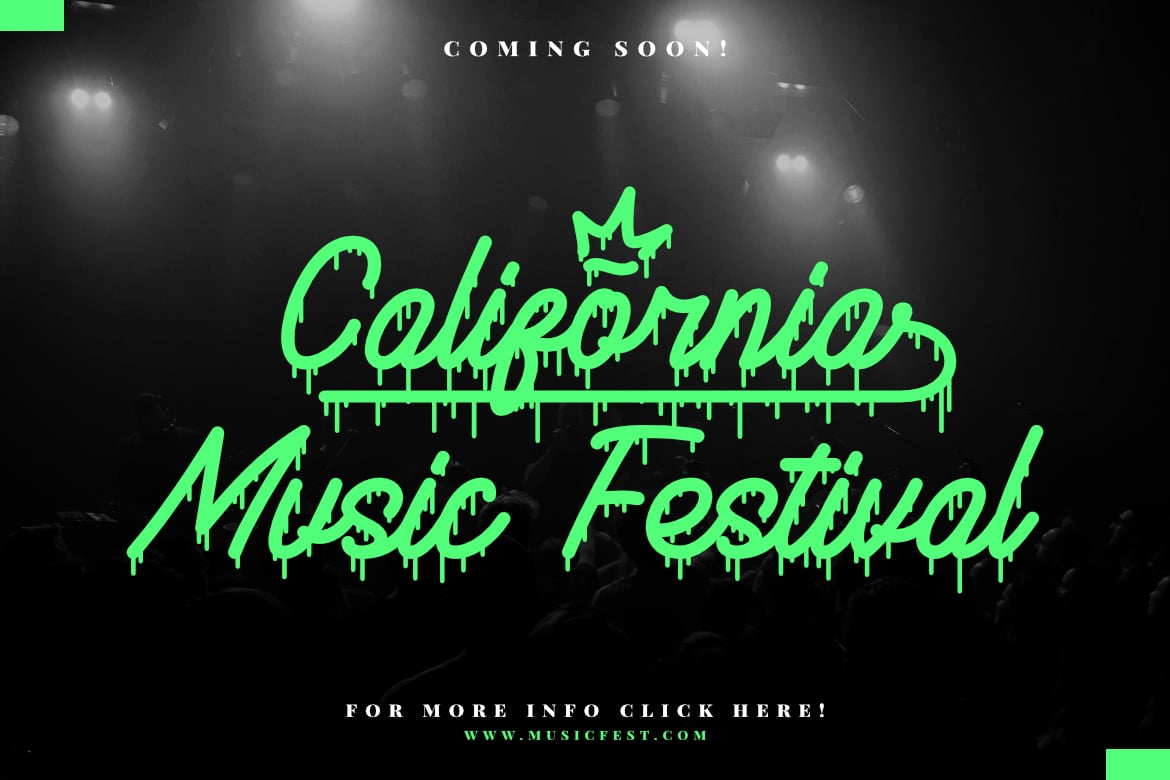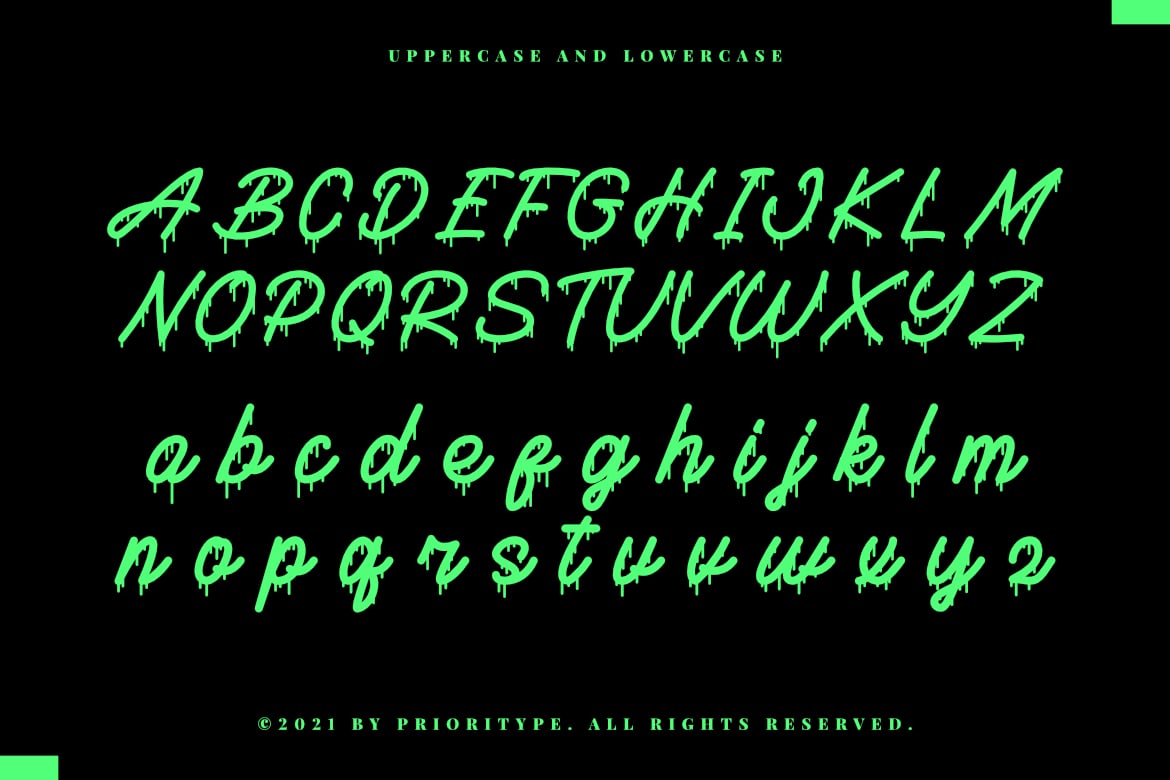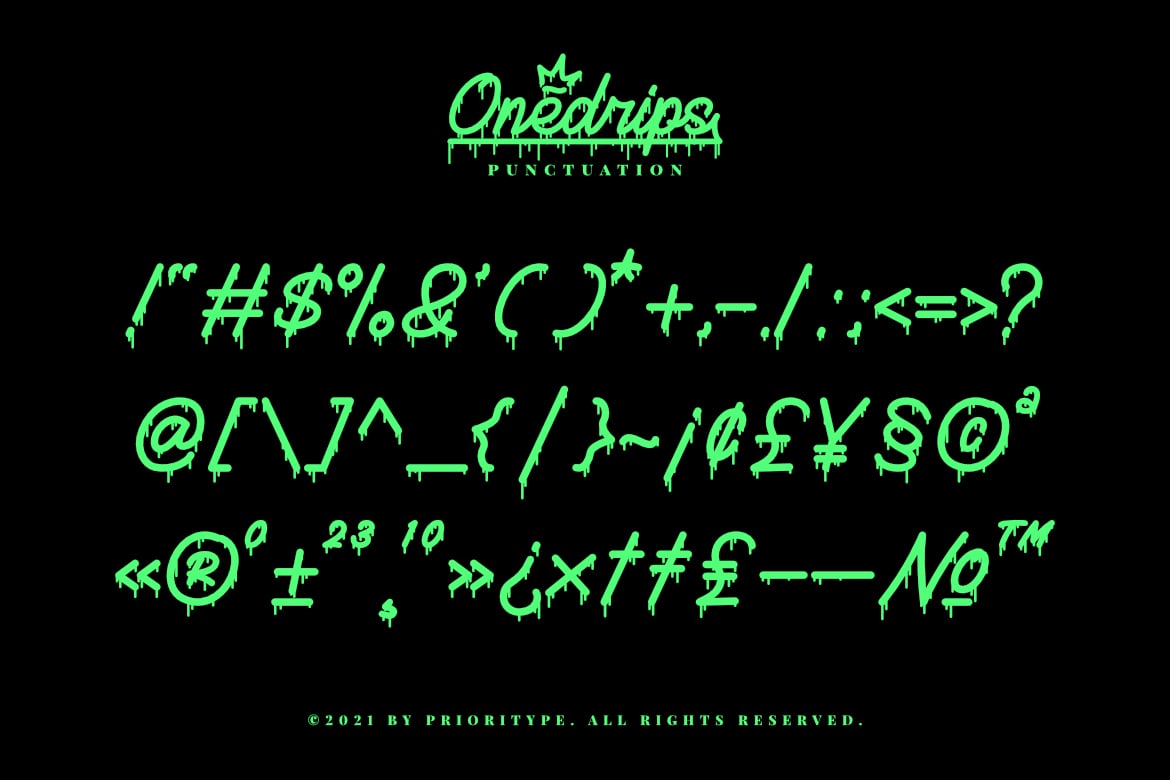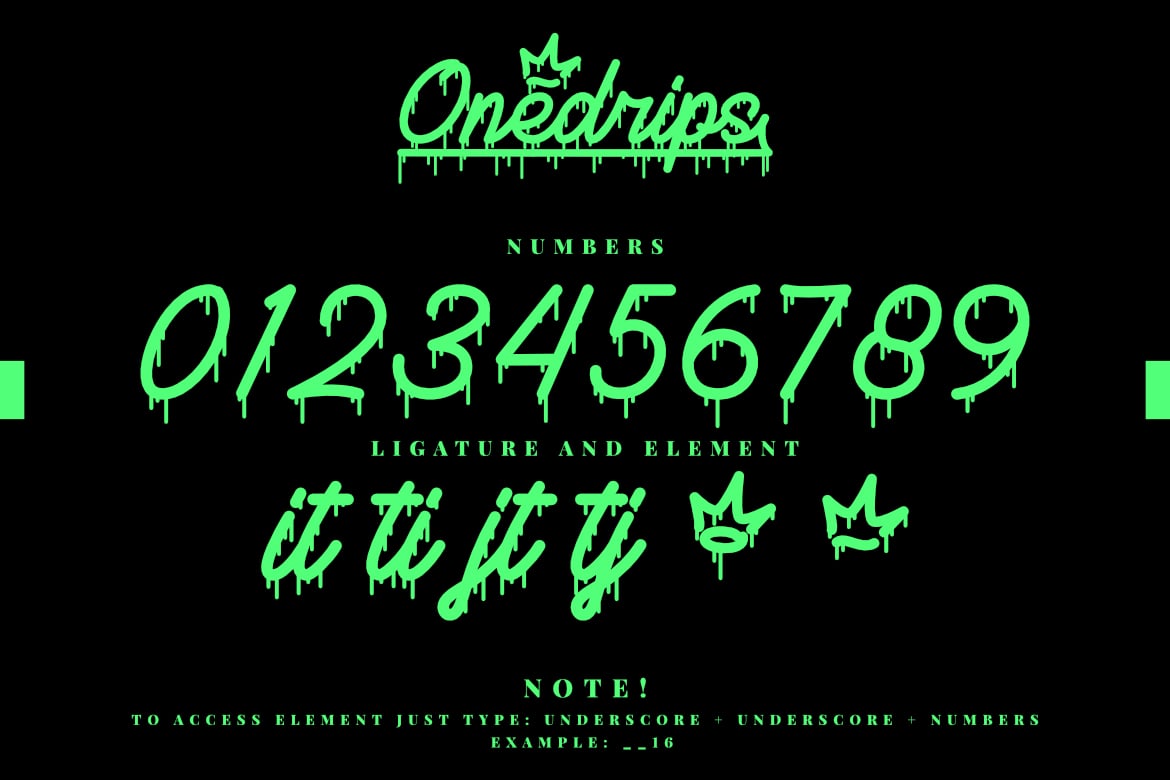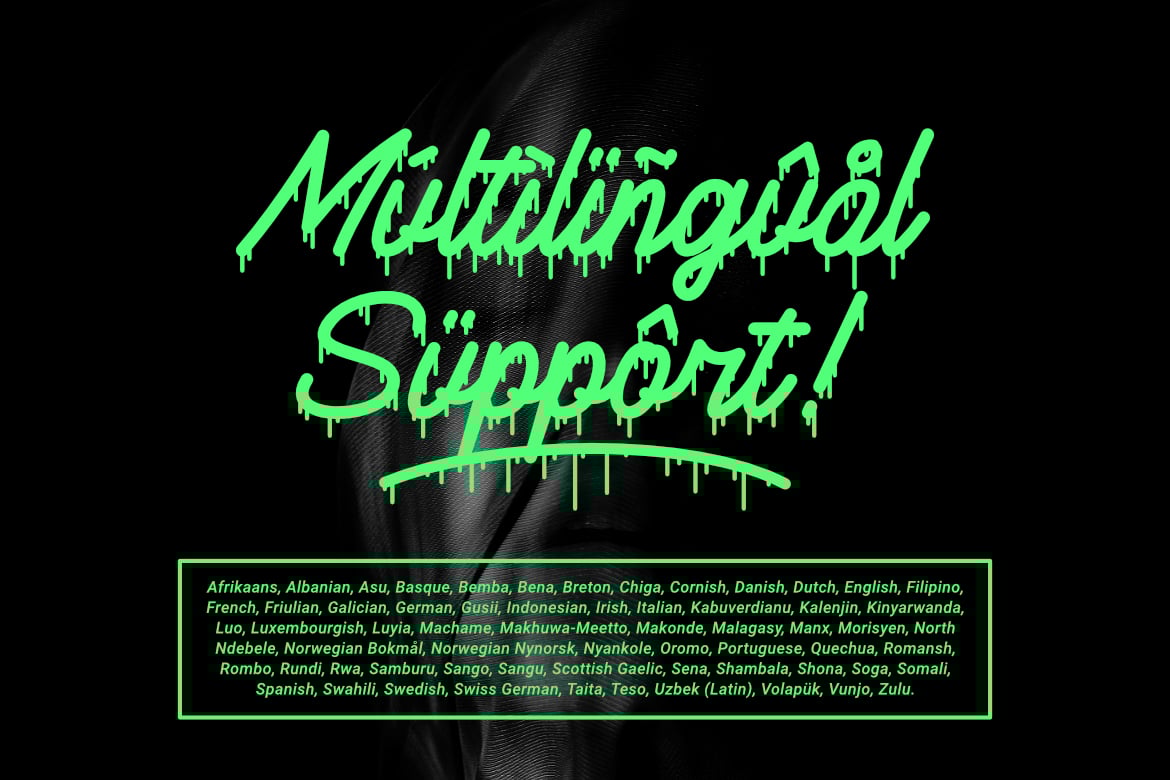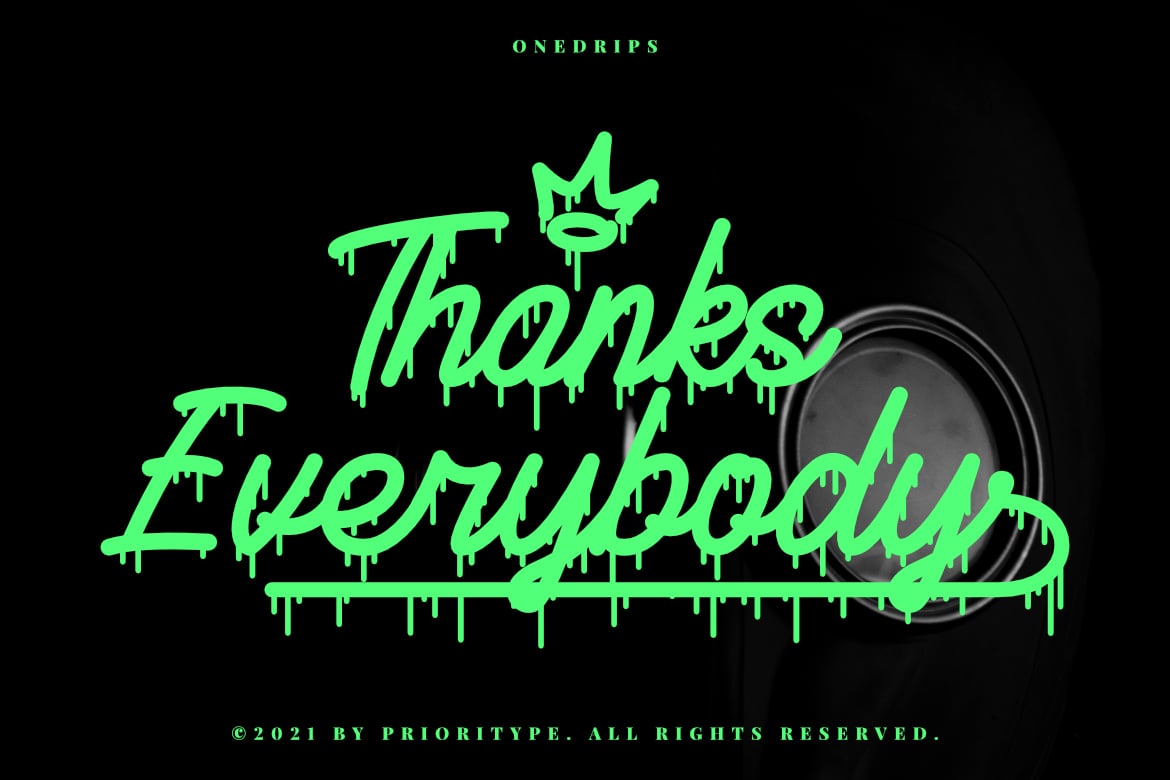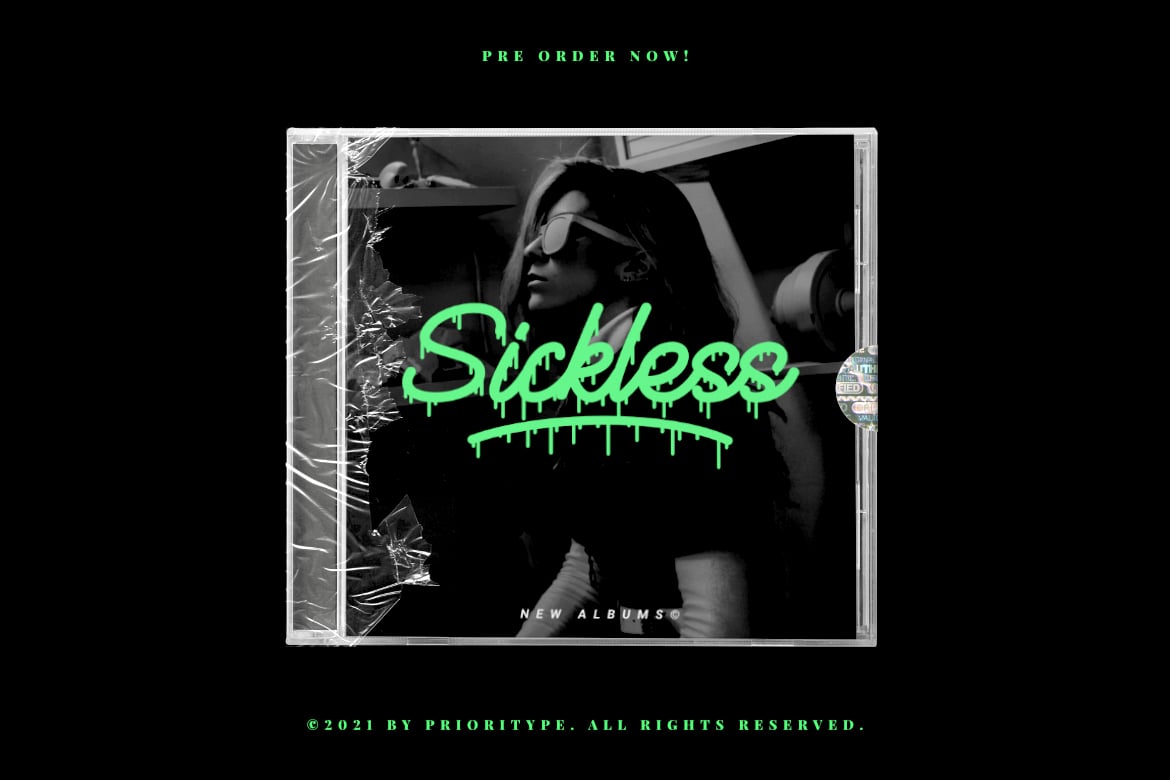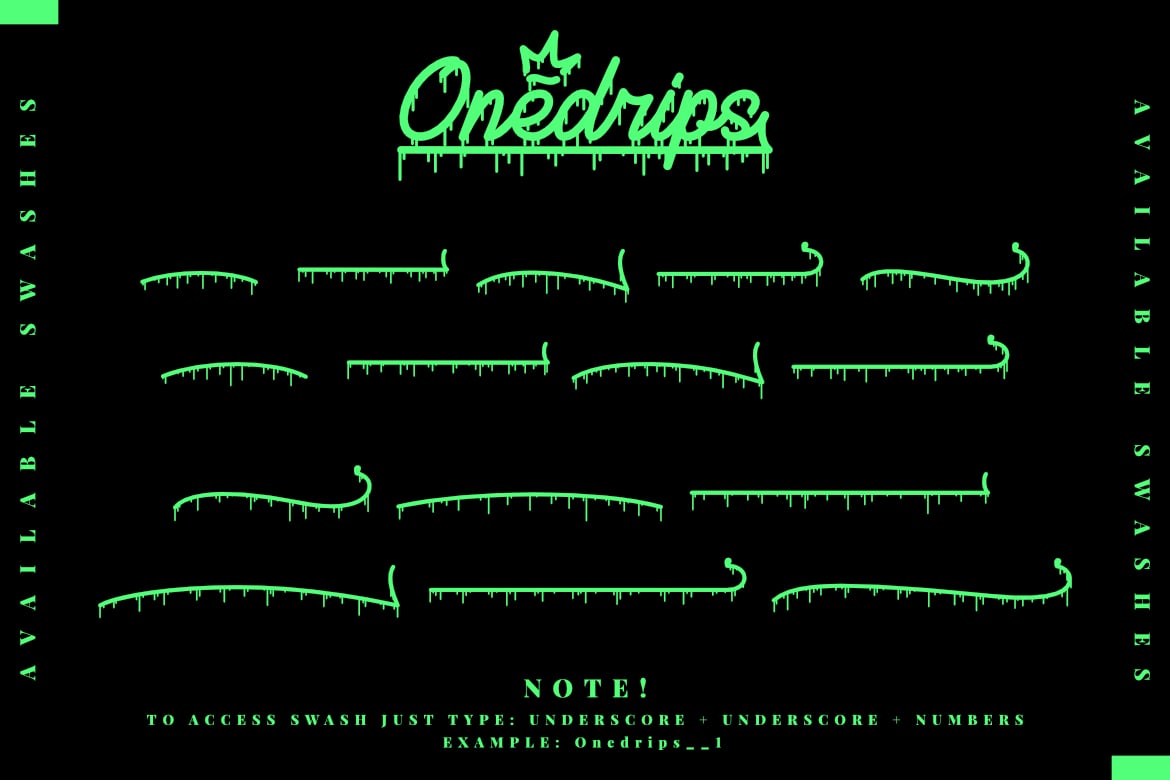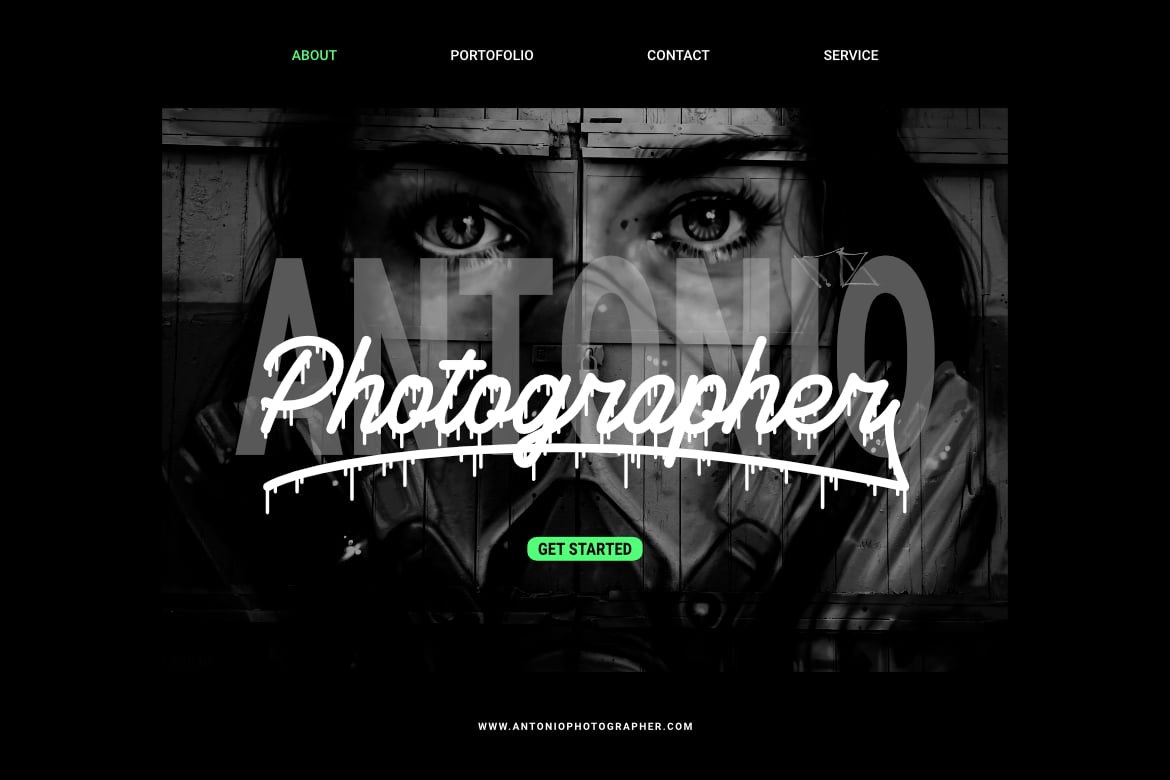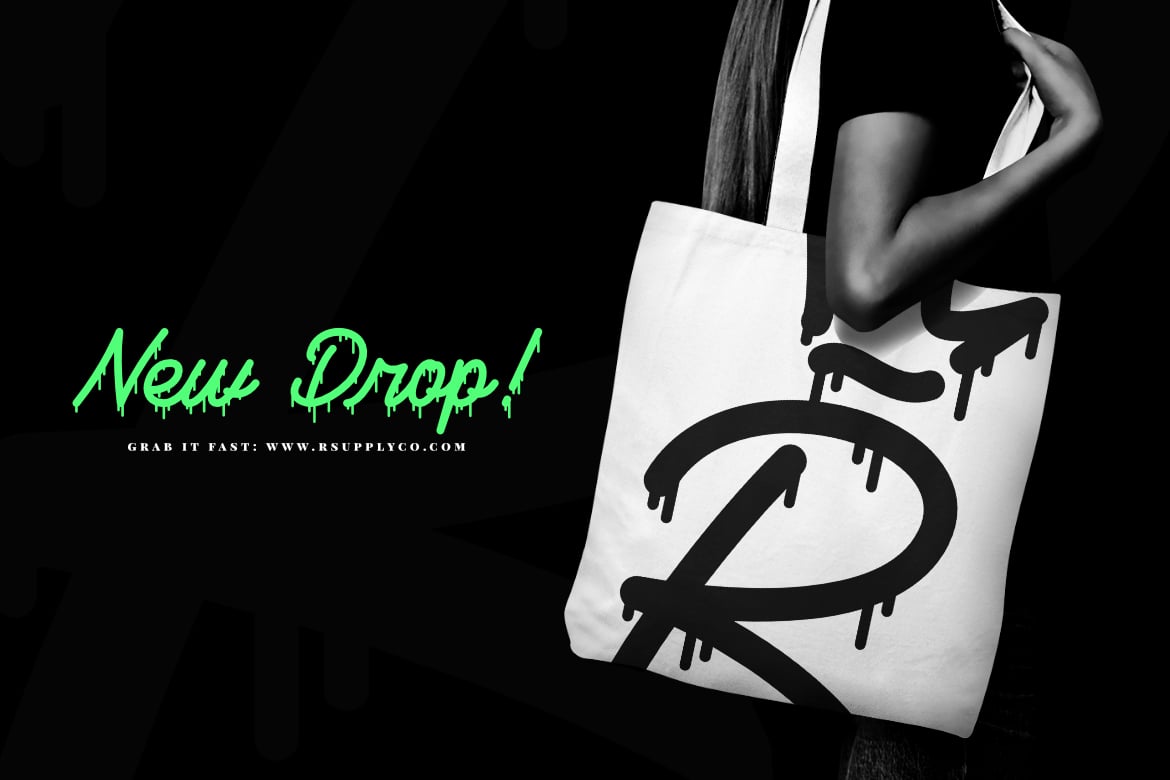
Onedrips – Graffiti Script Fonts
Script style fonts mixed with ink drop style are very special to work with you. You can use them in merchandise designs, album covers, book covers, posters, stickers, social media posts, landing pages and much more you can make with this great item for any design!
- Features: Uppercase, Lowercase, Numeral, Punctuation, Multilingual, Opentype Features & PUA Encoded.